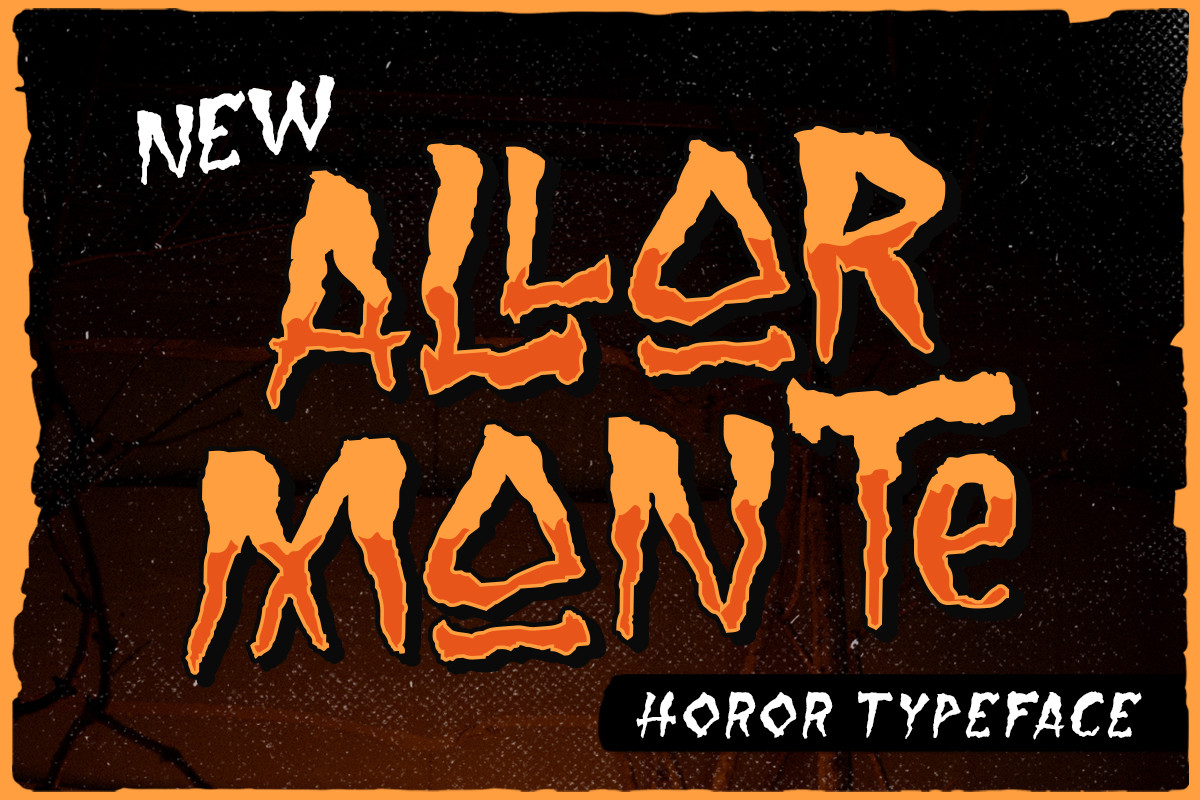
Allarmante Font
This alarming font is perfect for urgent warning signs, emergency alert systems, crisis communication displays, danger zone signage, alarm system branding, urgent notification messages, emergency response materials, critical alert announcements, warning label designs, and high-priority emergency messaging materials.
Allarmante Font is exciting because it captures the immediate urgency and commanding attention that critical situations demand through its boldly designed letterforms that instantly communicate the gravity and importance of emergency information. The font features sharp, angular characters with urgent proportions and alarming details that reflect the way emergency communications must cut through noise and distractions to deliver life-saving information with crystal clarity, incorporating alert-inspired flourishes and warning elements that create typography as attention-grabbing and unmistakable as sirens cutting through silence. Each letter showcases the authoritative presence and undeniable urgency that emergency communications require, with commanding strokes and crisis-appropriate accents that transform ordinary text into urgent proclamations that demand immediate attention and swift response from anyone who encounters them.
The Allarmante Font family includes emergency-inspired variations: Regular, Bold, Light, Alert, and Crisis versions. The collection features special warning elements including alarm accents, urgent flourishes, emergency details, and critical ornamental touches. Additional components include warning borders, alert frames, emergency decorations, and urgent ornamental designs that enhance the font's alarming appeal and create cohesive emergency communication themes.
Emergency services and safety professionals will find Allarmante Font Free Download to be an invaluable resource for creating effective crisis communications that ensure critical information reaches audiences with the urgency and clarity that emergency situations demand. This urgently crafted font transforms ordinary warning messaging into commanding communications that cut through distractions and deliver essential information with the authoritative presence that saves lives and prevents disasters.
The typeface includes comprehensive character support with emergency styling that maintains excellent readability under stress while conveying the critical urgency and commanding authority of emergency communications. The font's alarming design ensures maximum impact across both digital emergency applications and physical warning signage.
Perfect for emergency services, safety organizations, crisis management, and urgent communication systems, this font delivers commanding visual impact that communicates immediate urgency, critical importance, and the life-saving authority that makes emergency communications effective in protecting people and preventing disasters when every second counts.